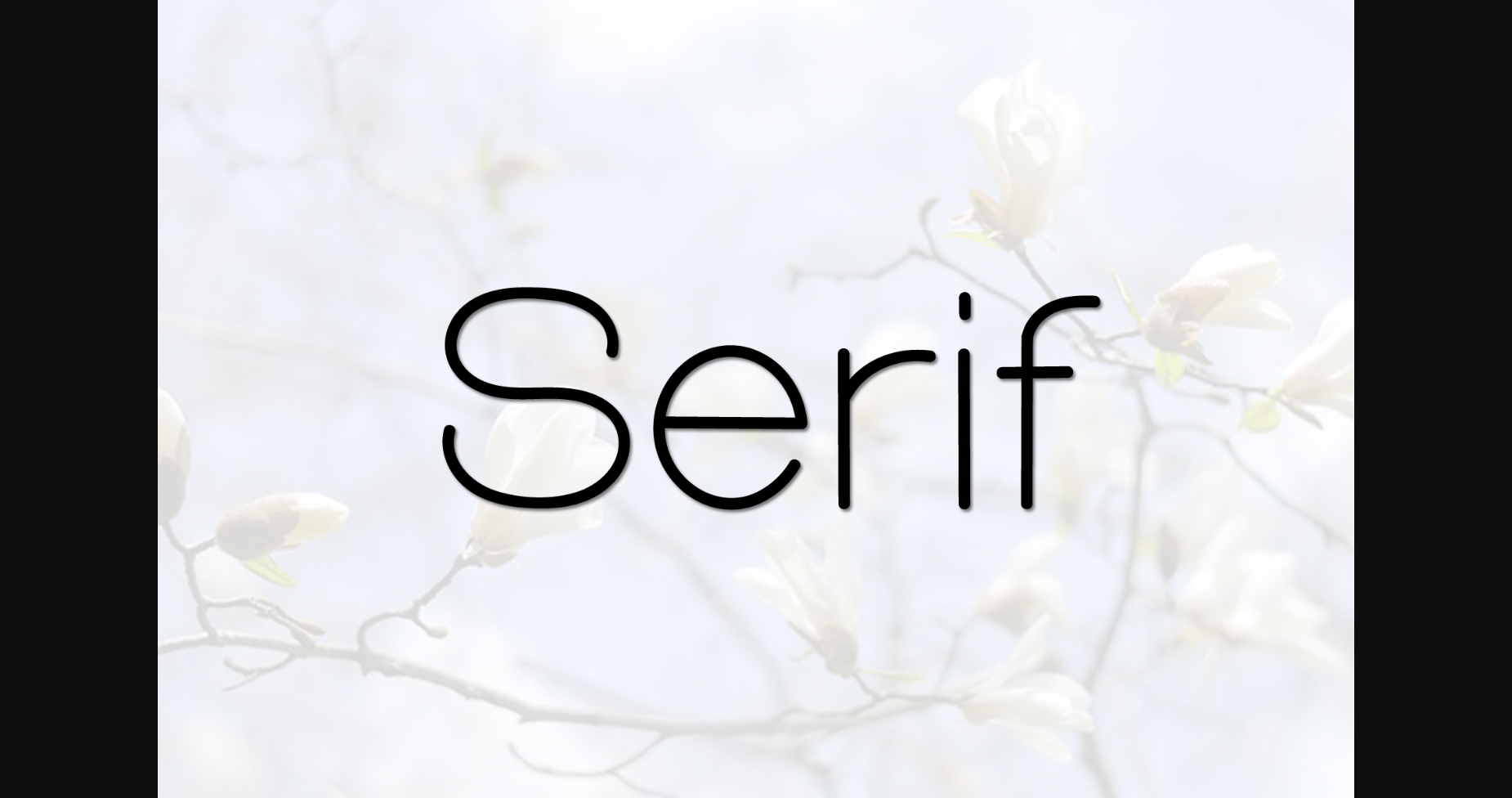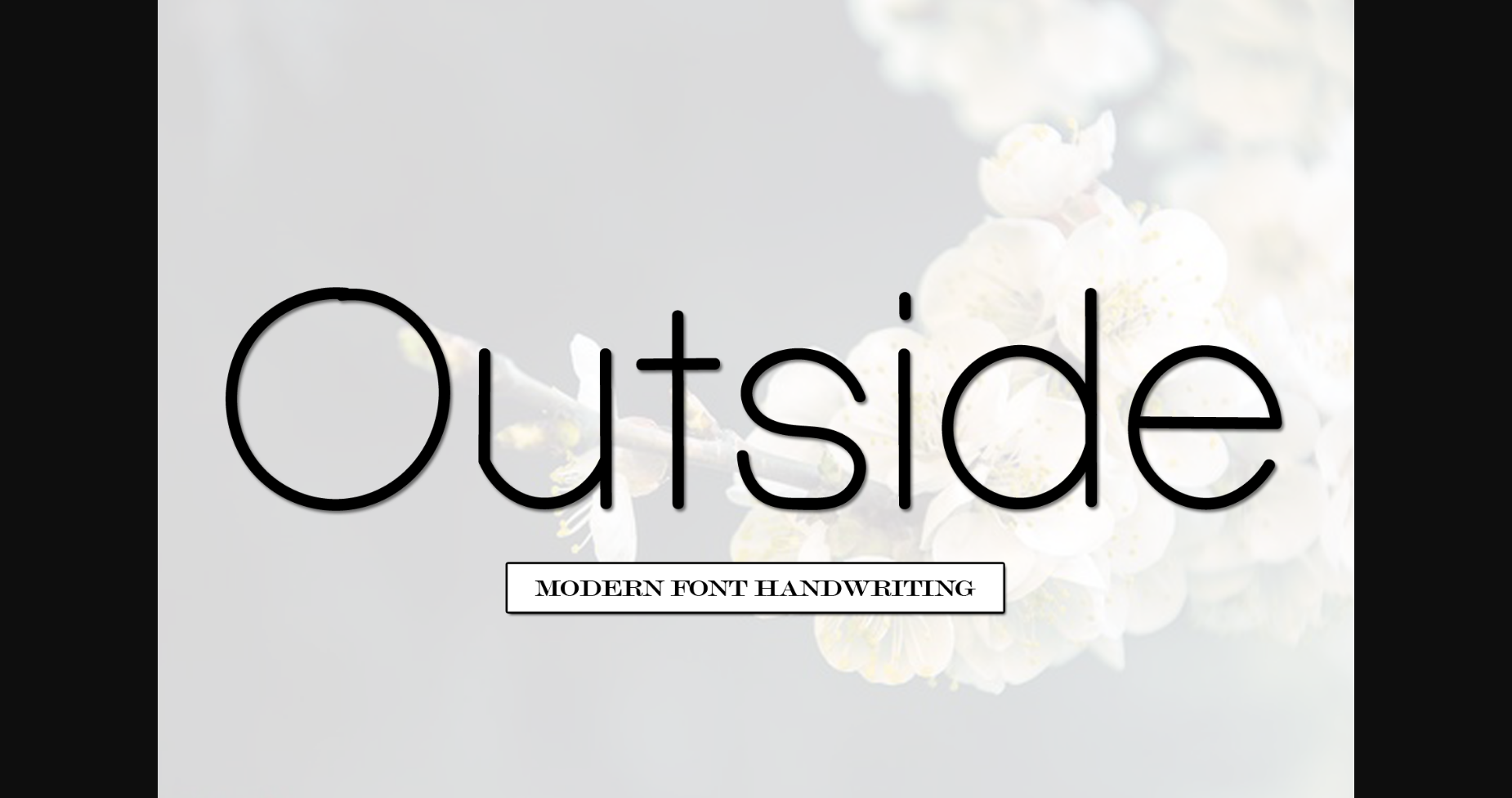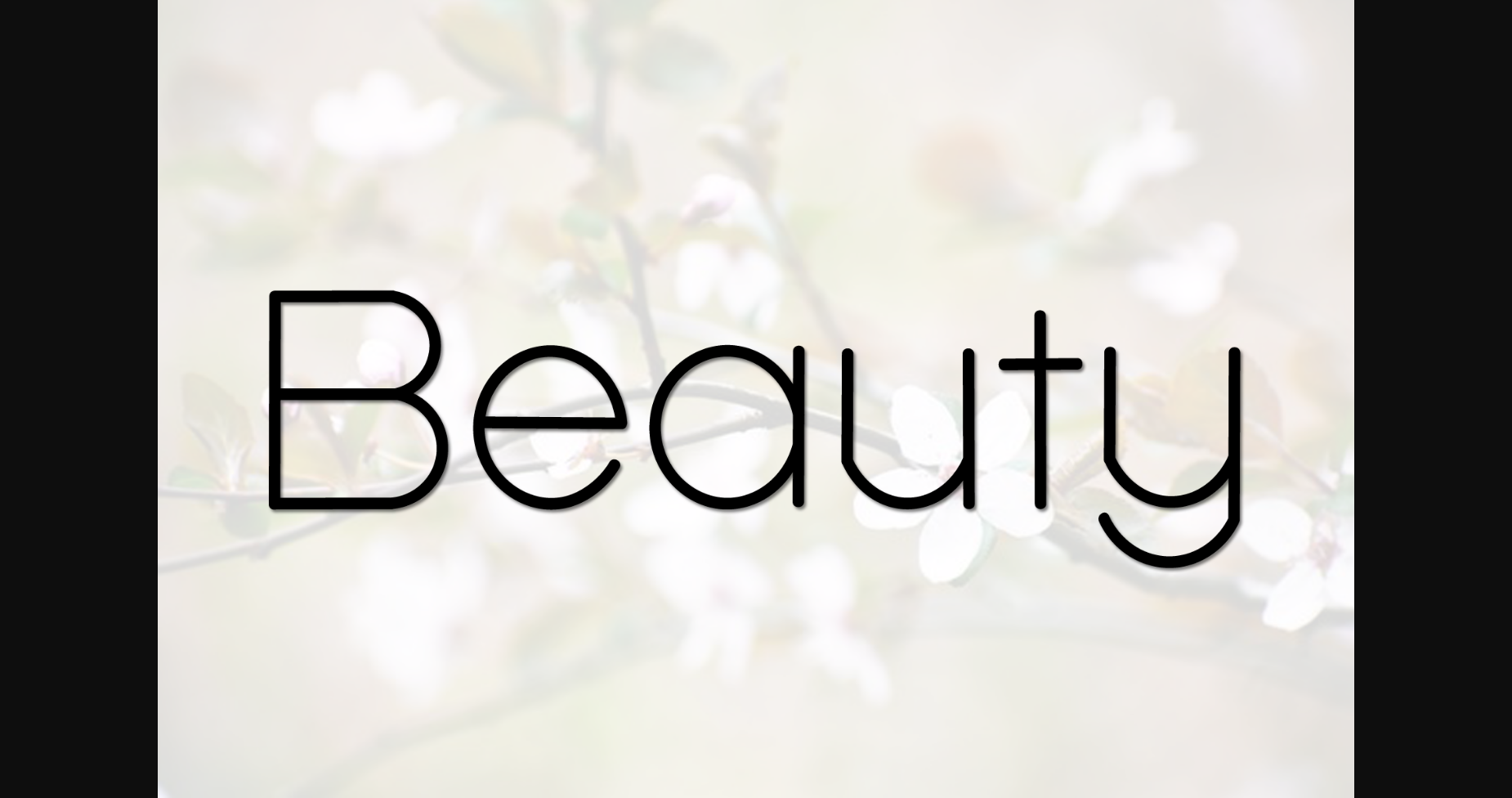
About Outside Font
Outside is a stylish and very elegant sans-serif font. It looks amazing on wedding invitations, thank you cards, quotes, greeting cards, logos, business cards, and any other design that calls for a handwritten touch.